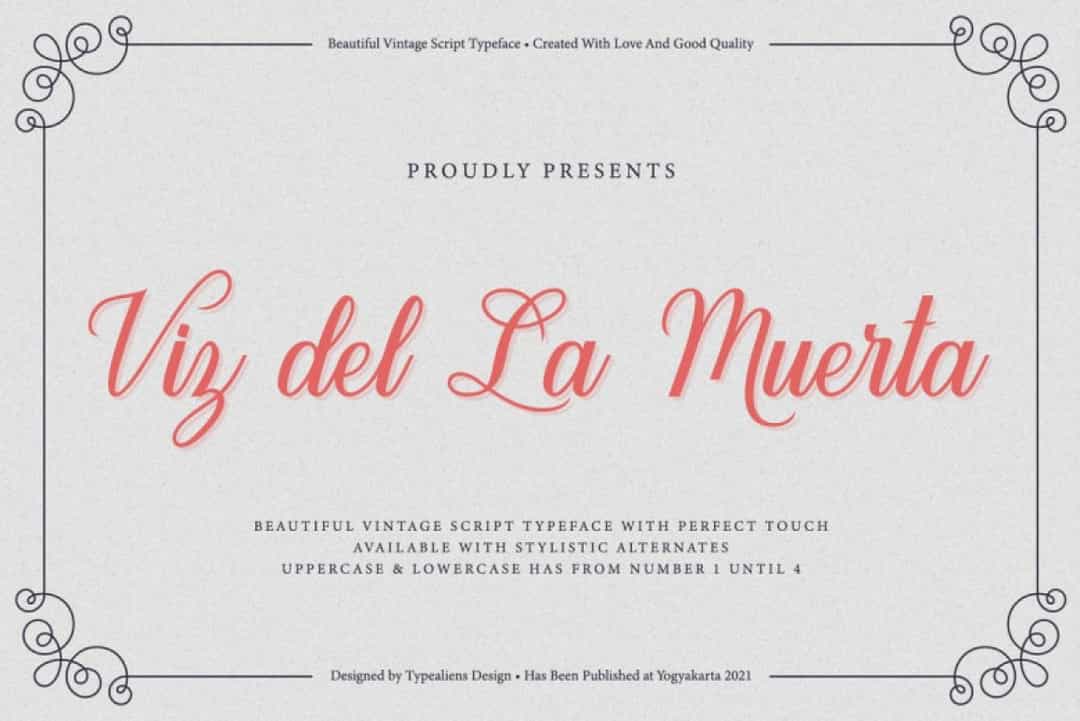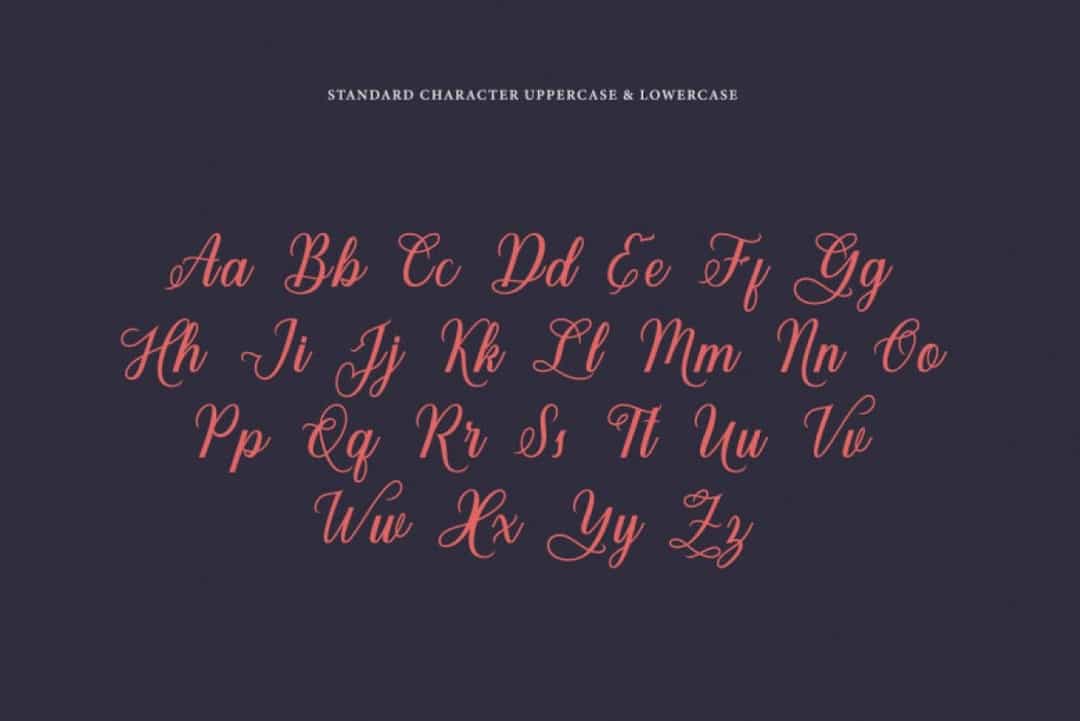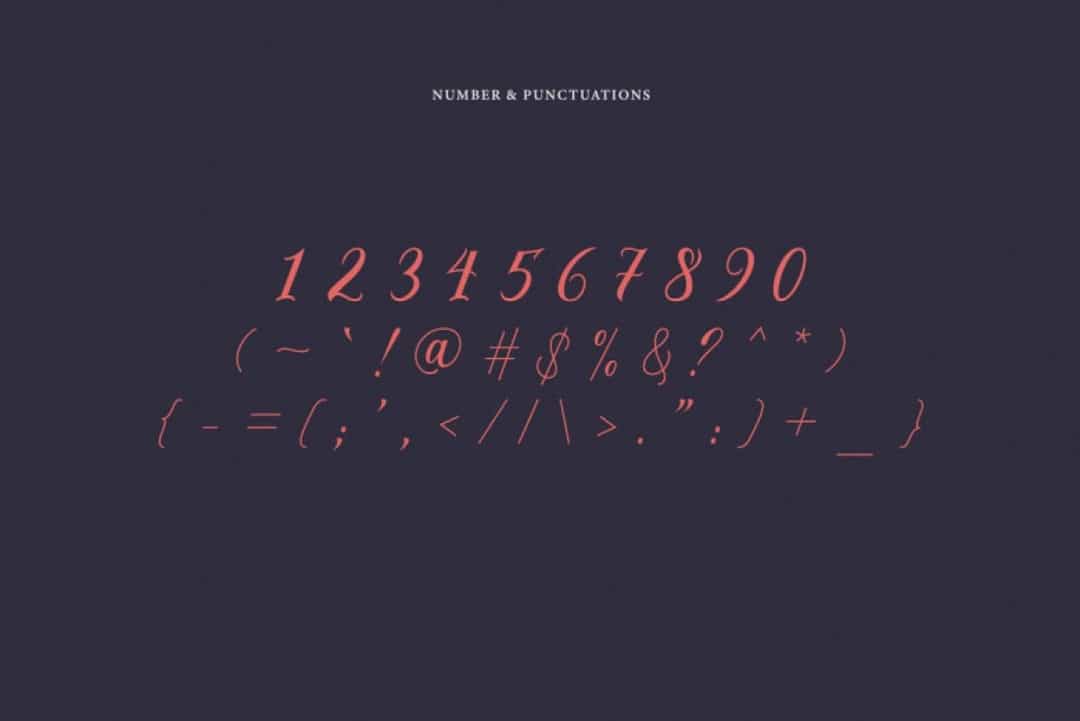
Viz del La Muerta is an elegant vintage script font with feminine characteristics. Created to commemorate copperplate lettering’s basic structure, its classic curves look striking – making this style of font suitable for use on wedding invitations to spell the bride’s name for an elegant logo design.